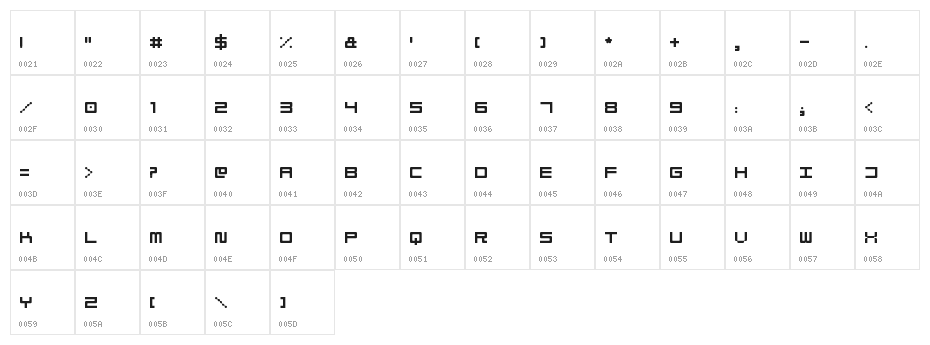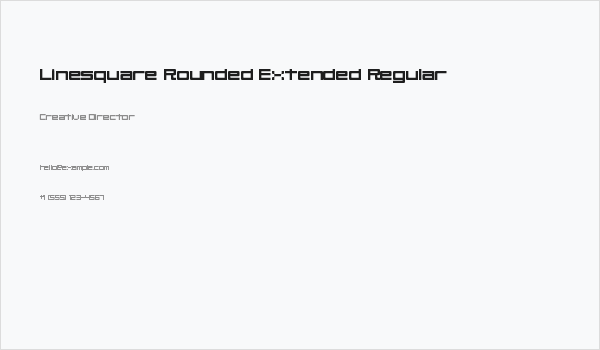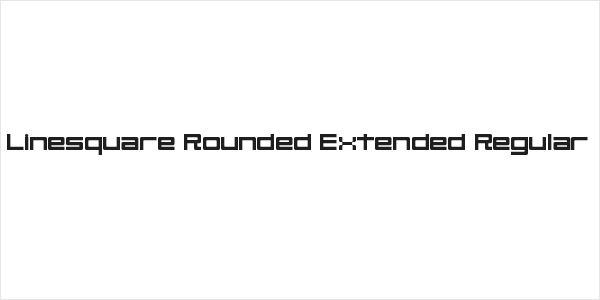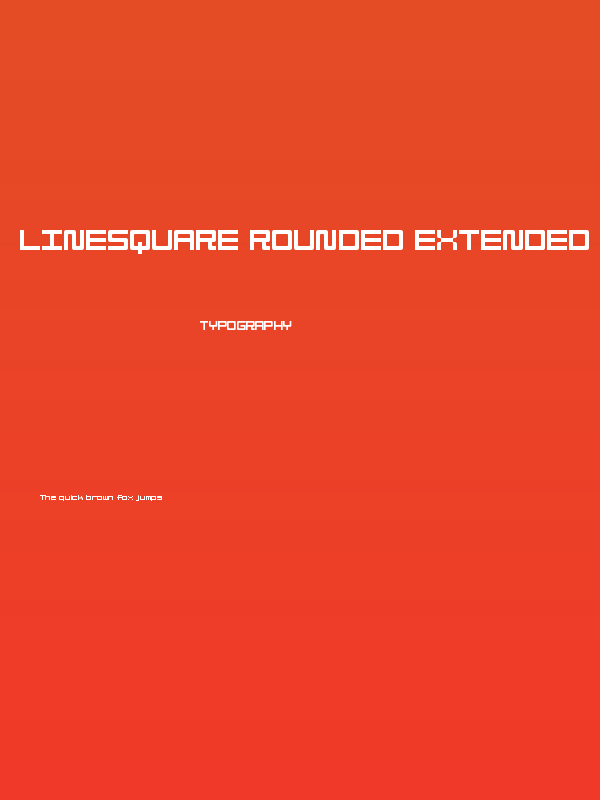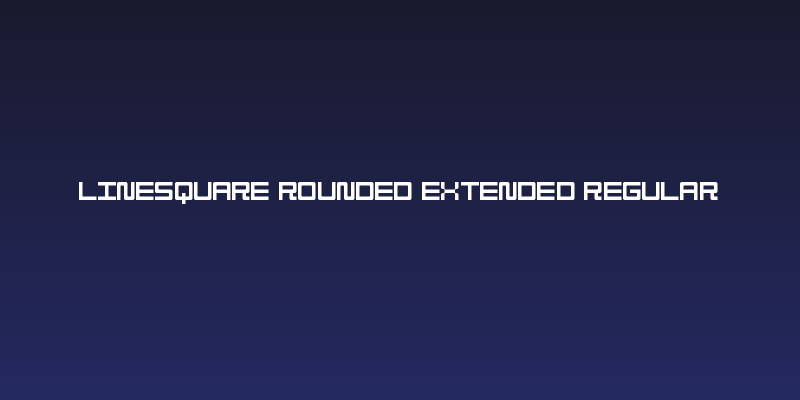
Linesquare Rounded Extended Regular Font
Linesquare Rounded Extended Regular Description
This font features a modern, geometric design with rounded edges, giving it a friendly yet futuristic appearance. The characters are constructed with a consistent line weight, creating a uniform and clean look. The extended width of the letters provides a spacious feel, enhancing readability. The rounded corners soften the overall aesthetic, making it suitable for both digital and print media. The font includes a full set of uppercase and lowercase letters, numbers, and a variety of special characters, ensuring versatility in various design applications.
| Use Case | Headlines, Logos, Digital Interfaces |
| Proposed Projects | Ideal for tech branding, digital interfaces, modern advertising, and futuristic design projects. |